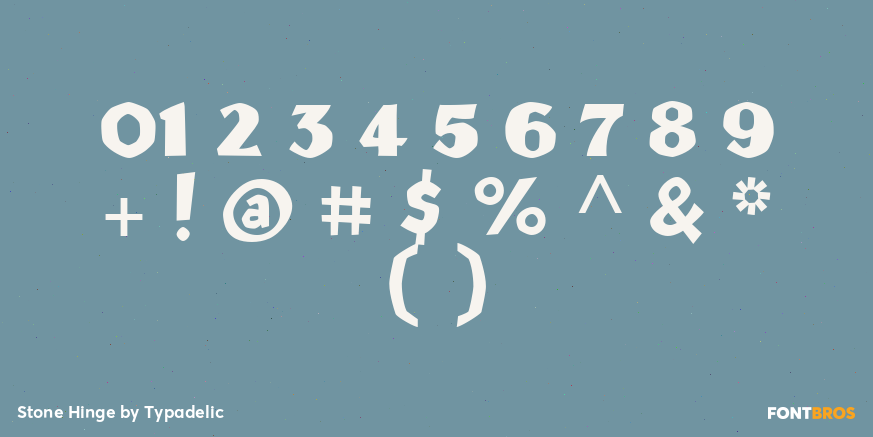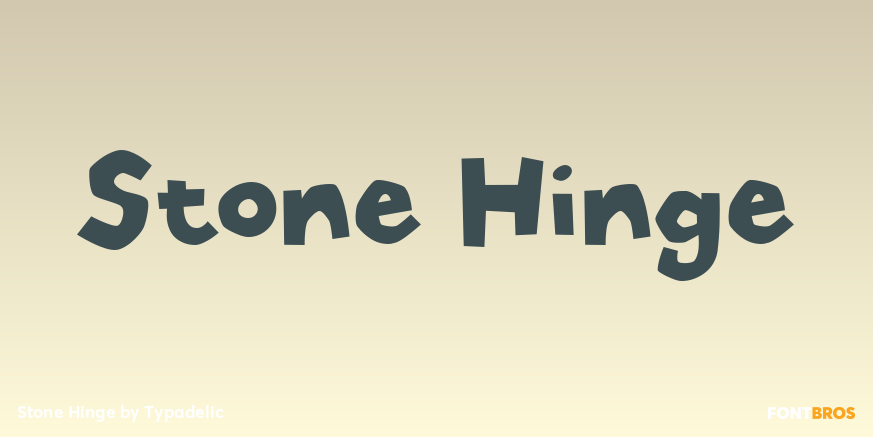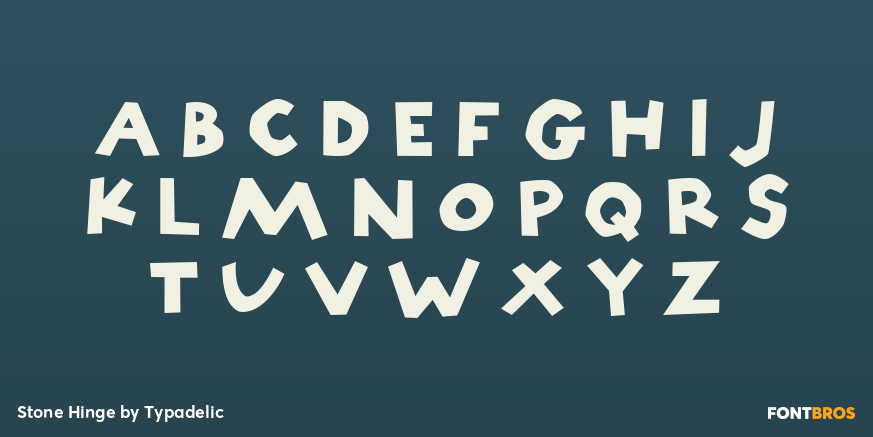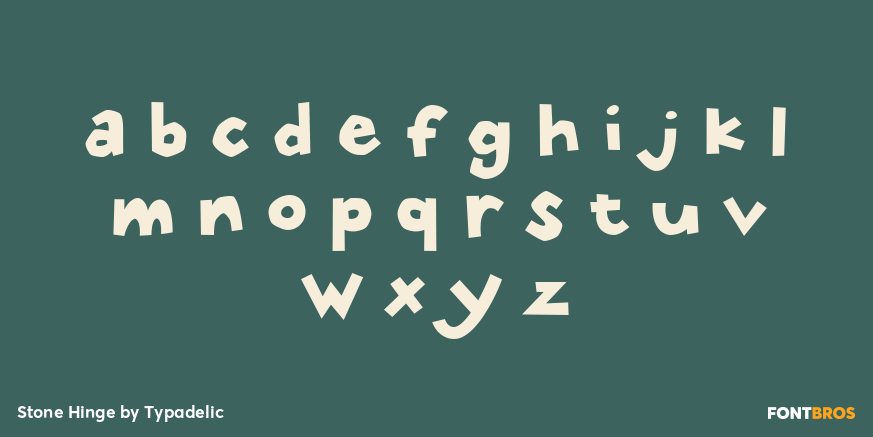
Stone Hinge
Font Family by Typadelic
Stone Hinge is a playful display sans with a bold, chunky build and an intentionally quirky edge. Its geometric structure and irregular shapes give it a casual, modern personality with strong visual presence, making it feel fun, decorative, and a little offbeat in the best way.
With its single style approach, this design is well suited to work that needs instant character rather than quiet neutrality. Use it for posters, branding, packaging, social graphics, apparel, or any display setting where a bold, wacky tone and a confident silhouette can do the talking.
Created by Typadelic, Stone Hinge brings together playful energy and sturdy letterforms for eye-catching headlines and standout design moments.